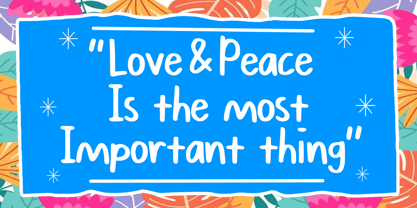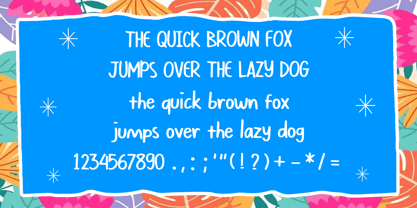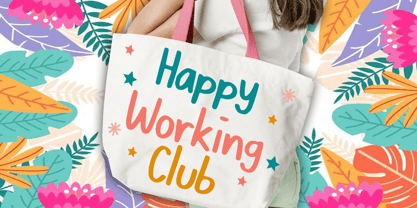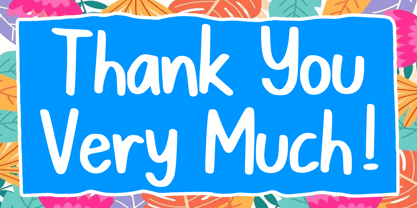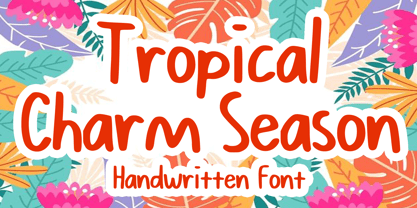
Tropical Charm Season
by Mvmet
The Tropical Charm Season Font Family was designed by Gabriel Valentinus and published by Mvmet. Tropical Charm Season contains 1 styles. More about this family
Tropical Charm Season is a fun, playful comic handwritten font. It will elevate a wide range of design projects to the highest level. You can use this font for many design ideas such as stickers, t-shirt designs,merchandise designs, amazing logo designs, magazine or book covers, comics, cartoon drawings, daily typing, and many more. This font will add a super cool touch to your designs!
Designers: Gabriel Valentinus
Foundry: Mvmet